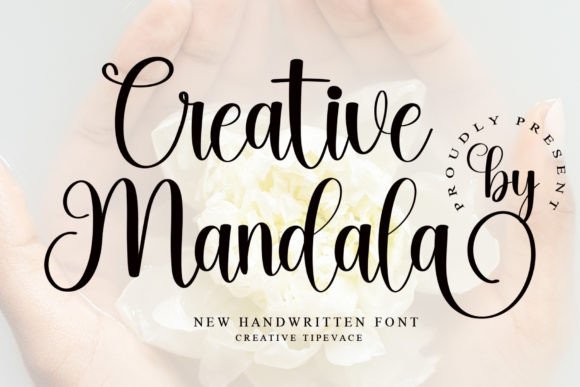
Step into the realm of artistic elegance with Creative by Mandala Font, a mesmerizing script font family that will enchant your designs. Prepare to be captivated by its unique charm, where each letter dances across the page with a touch of playful grace. With its flowing strokes and enchanting curves, this font will transform your projects into breathtaking works of art.
Immerse yourself in the beauty of Creative by Mandala, crafted with meticulous care and attention to detail. Each character exudes a captivating personality, adding a touch of magic to your creations. Whether you're designing wedding invitations, crafting heartfelt stationary art, or creating stunning social media posts, this font will effortlessly elevate your projects to new heights.
Unleash your creativity and let your imagination soar with Creative by Mandala. Its versatility knows no bounds, allowing you to effortlessly adapt it to a myriad of design styles. Whether you seek a touch of whimsy, a sprinkle of elegance, or a burst of vibrant energy, this font will seamlessly blend into your vision.